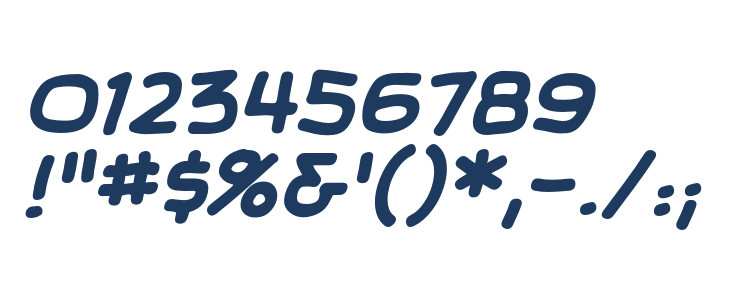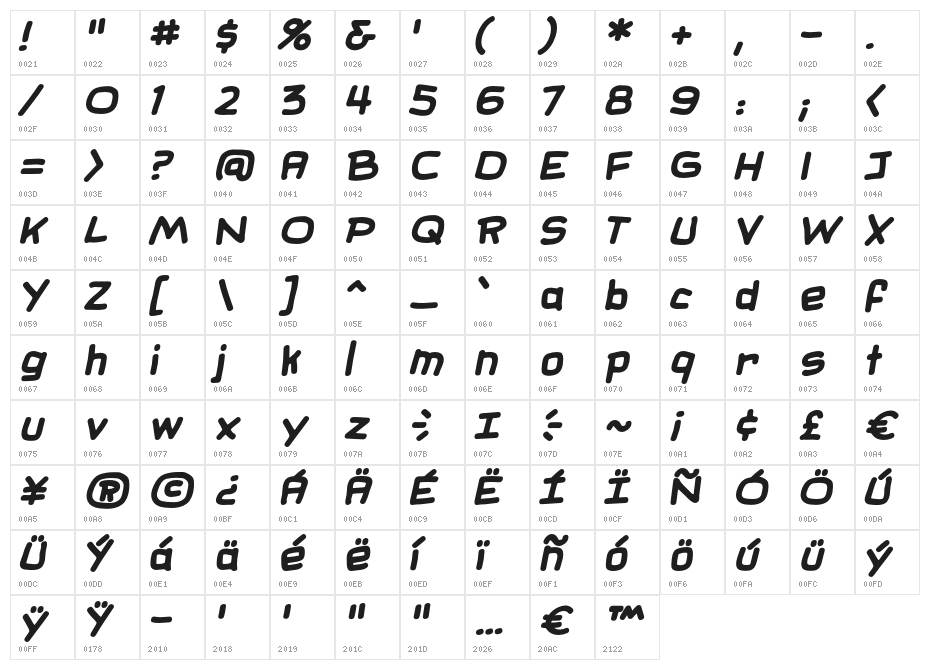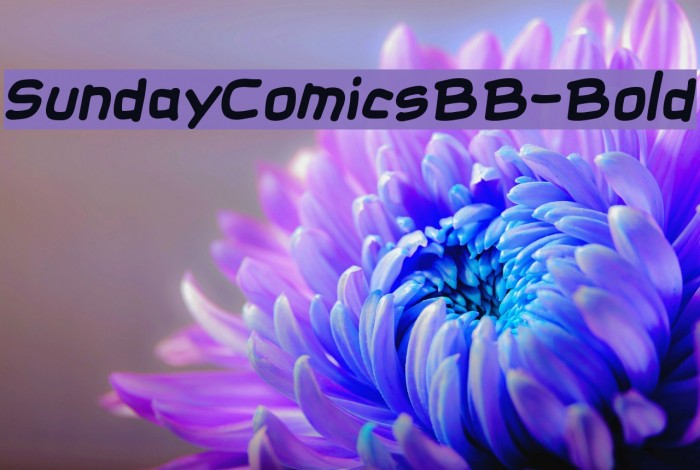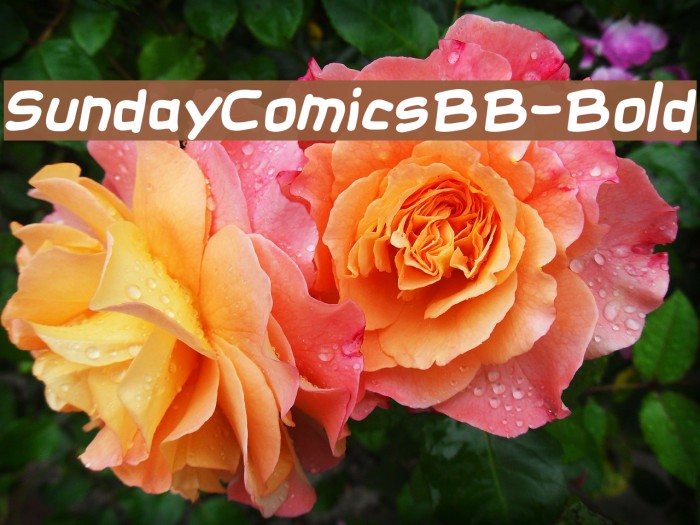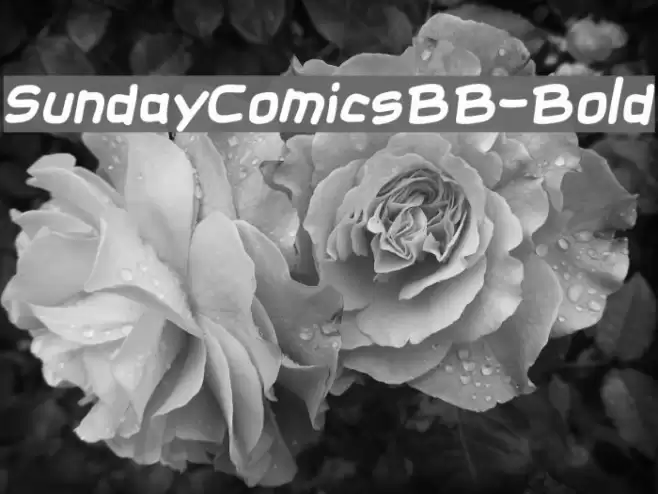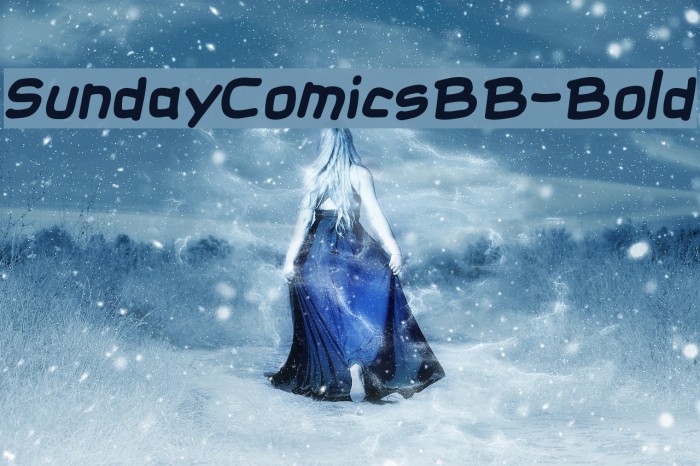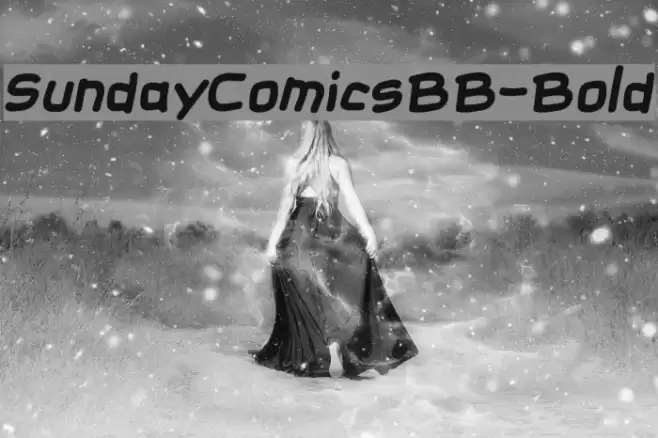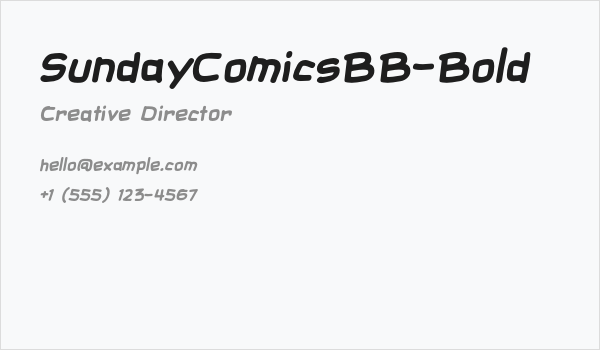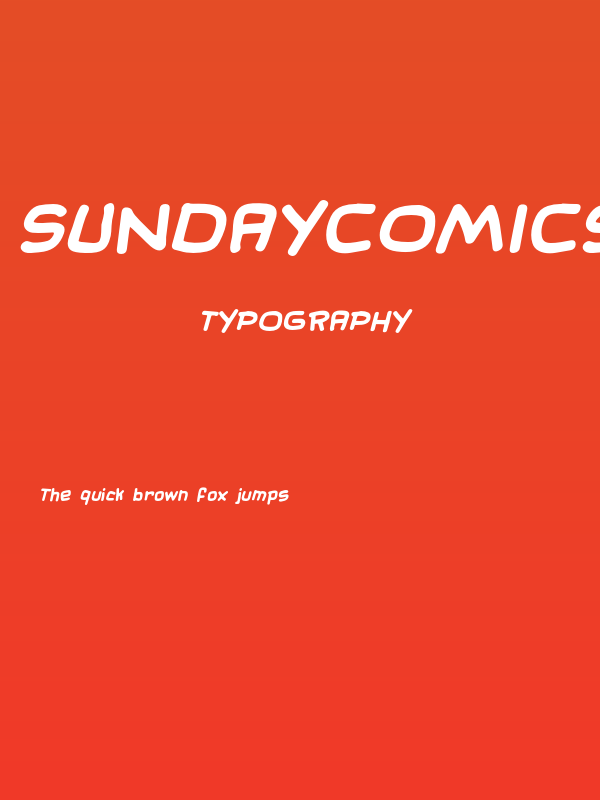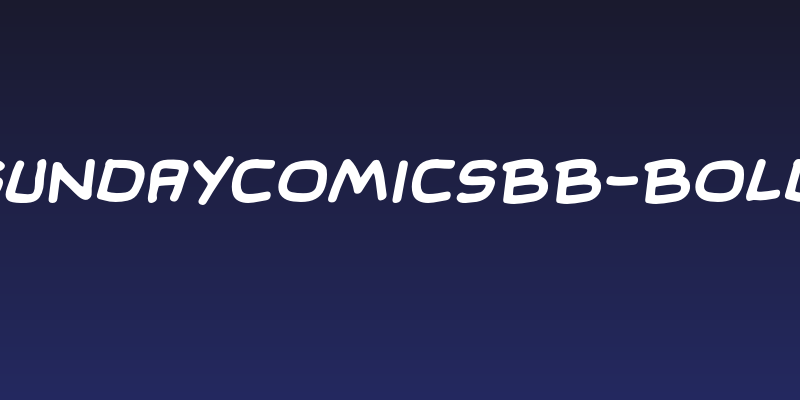
SundayComicsBB-Bold Font
This font features a playful and bold style, reminiscent of classic comic book lettering. The characters are rounded with a slight slant, giving them a dynamic and energetic appearance. The boldness of the strokes ensures high readability, while the informal style adds a touch of fun and creativity. The font maintains a consistent weight throughout, with smooth curves and a slightly condensed width. The spacing between characters is normal, allowing for clear legibility without feeling cramped. This font is perfect for projects that require a lively and engaging visual impact.
| Proposed Projects | Ideal for comic books, children's books, playful branding, and creative posters. |